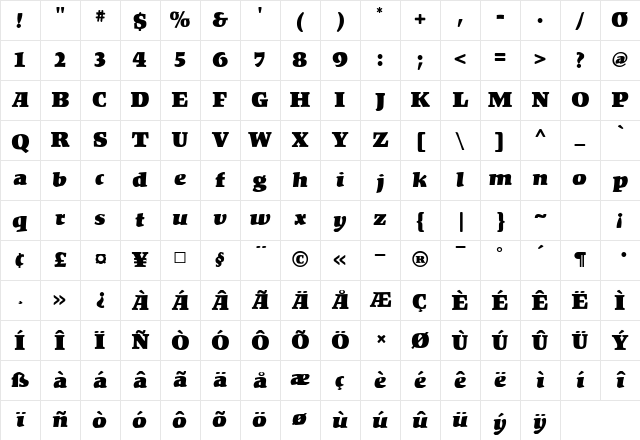
Kompakt MF Regular
Design Context for Kompakt MF
Kompakt MF is a composed and adaptable typeface that performs quietly and consistently across a wide range of design contexts.